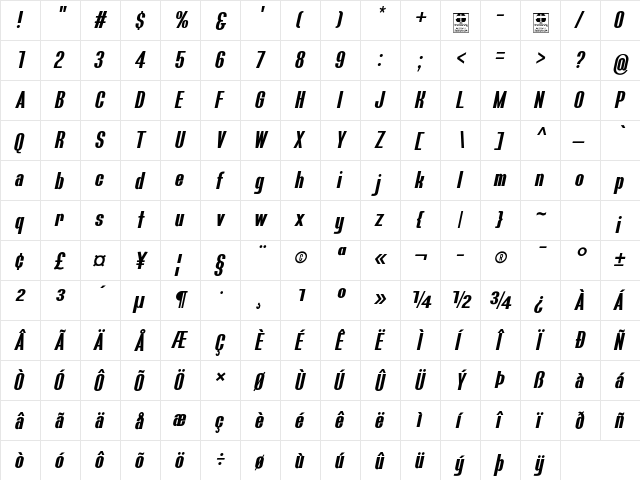
Bluefish Demo Bold Italic Font Preview
| Foundry | StudioTypo |
| Designer | Mehmet Abac |
Design Context for Bluefish Demo Typeface
Bluefish Demo offers clean, dependable letterforms without strong stylistic allegiance, making it a practical choice for designers who need flexibility. The dynamic lean of this cut emphasises speed and emphasis in any layout. The heavy weight commands attention and anchors typographic hierarchies.
Pro Tip: Try Bluefish Demo for annotation and caption copy alongside an upright companion — the contrast in angle creates a dynamic but ordered typographic system.